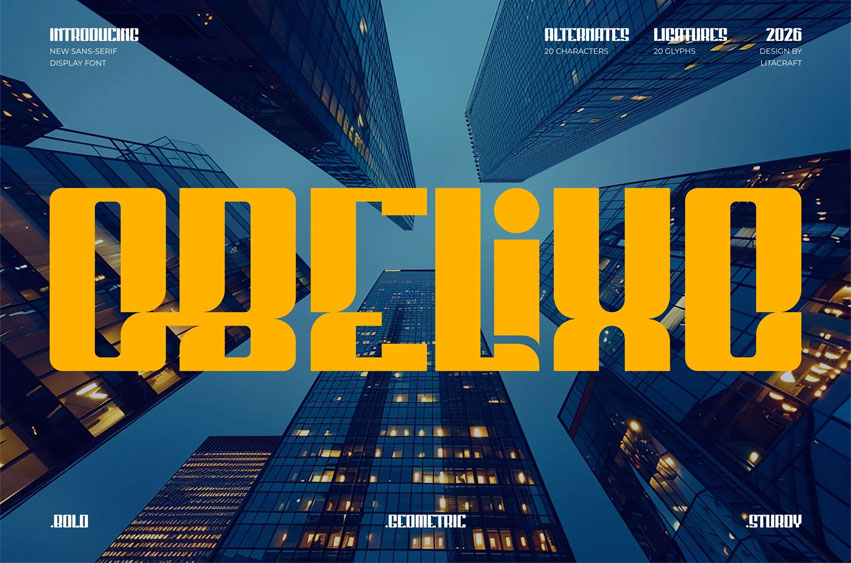
Obelixo Font is a bold, rigid, and blocky sans-serif display font, designed for those who want their message to be felt as much as it is read. With its heavy weight and condensed geometric structure, this typeface exudes a sense of industrial strength and modern authority.
Whether you’re building a brand, designing a futuristic gaming interface, or creating high-impact posters for an urban event, Obelixo provides the solid foundation for your project needs. Its clean, sharp lines ensure maximum legibility while maintaining a fierce, assertive aesthetic.
• Alternate Feature for selected character
• Ligature Feature for high‑impact headlines
• Works great for heavy-duty branding, industrial labels, packaging, logos, posters, and UI.